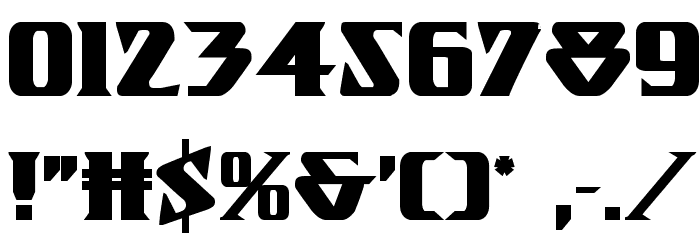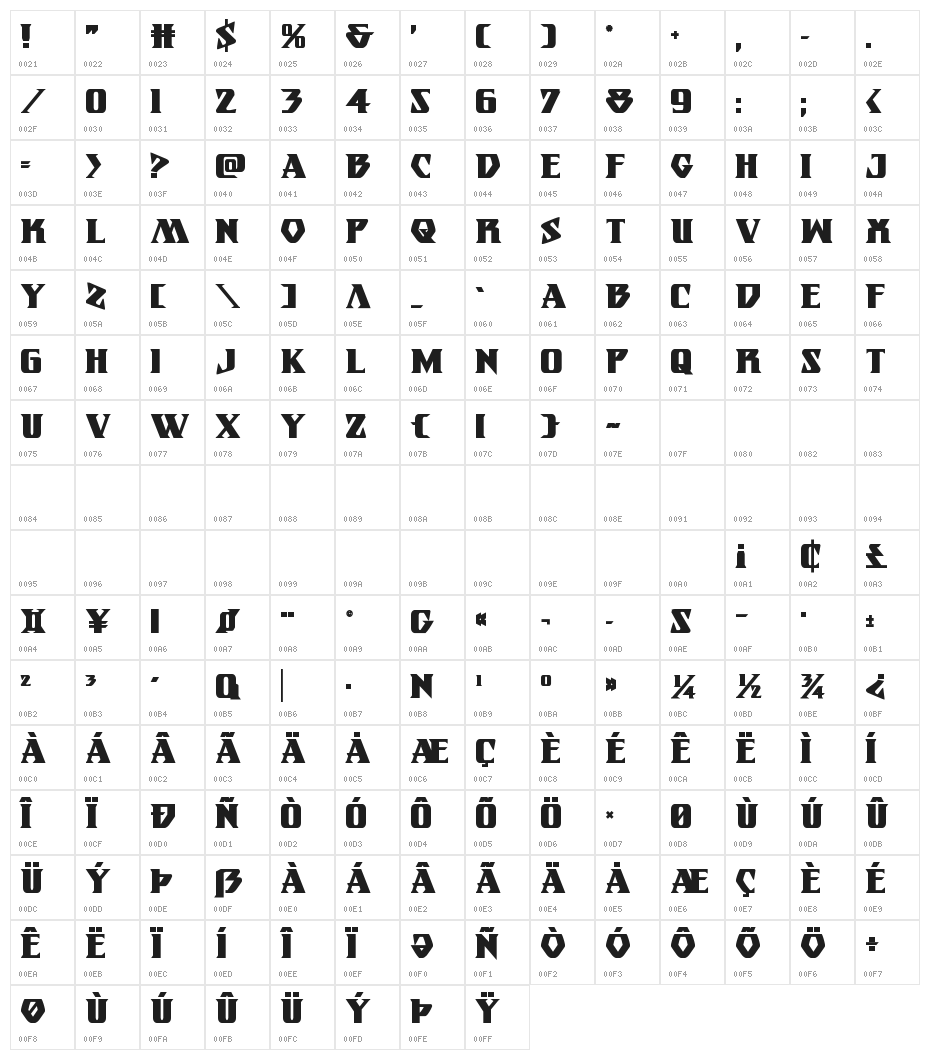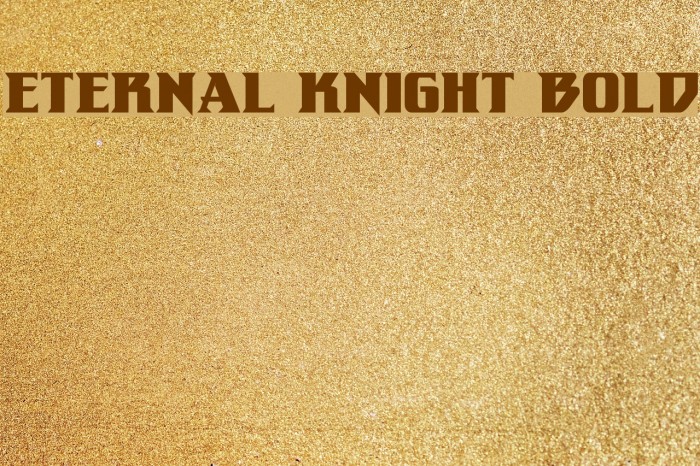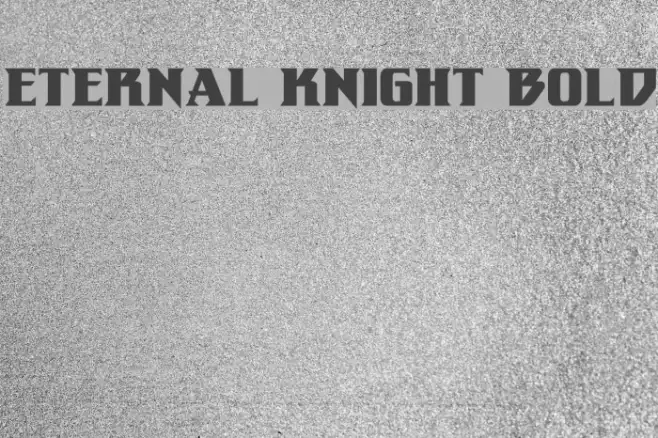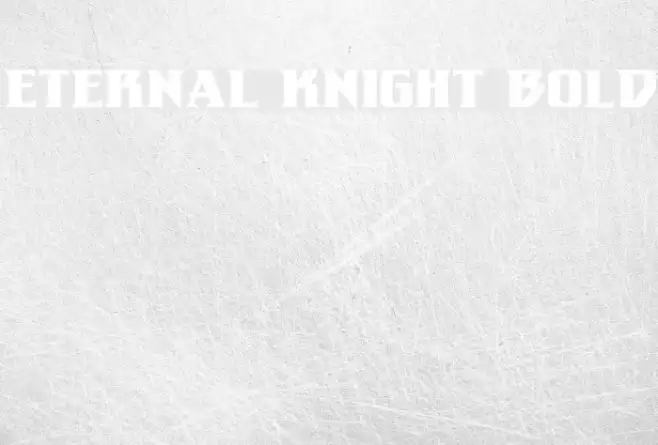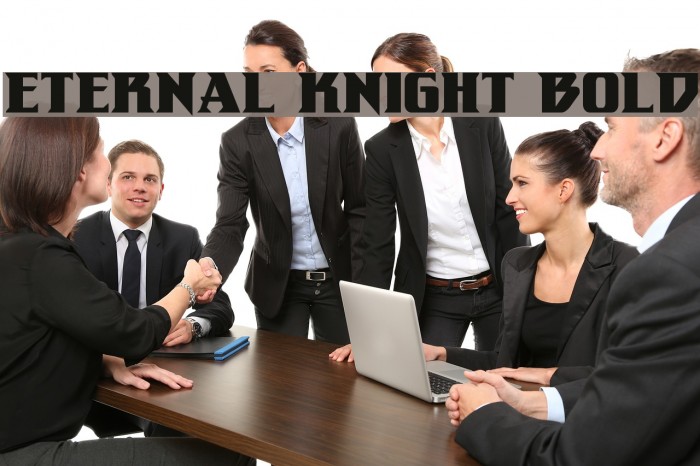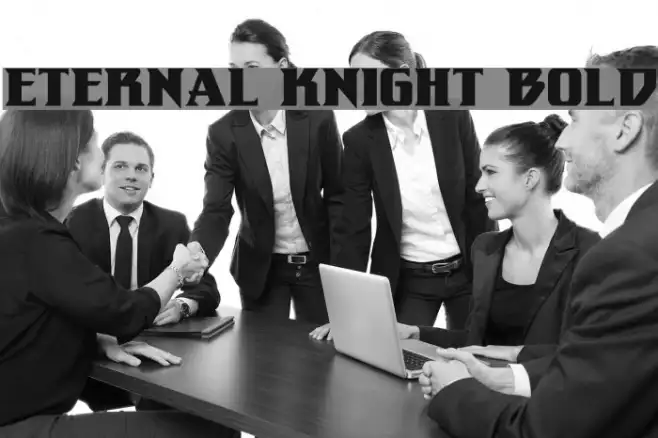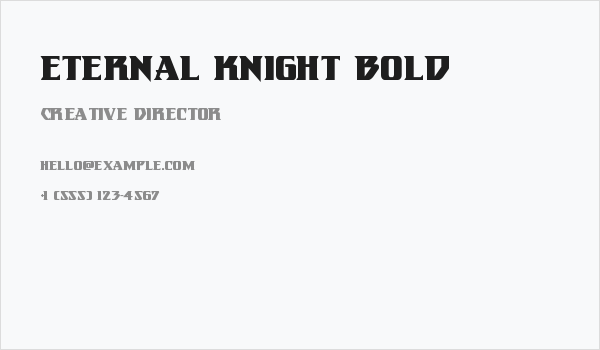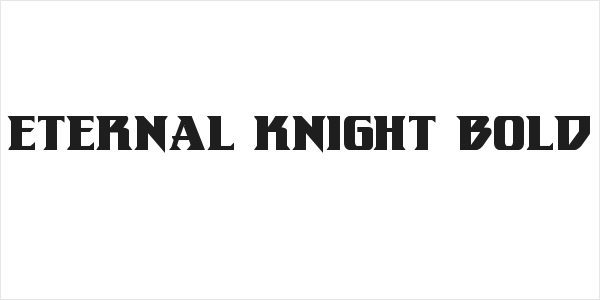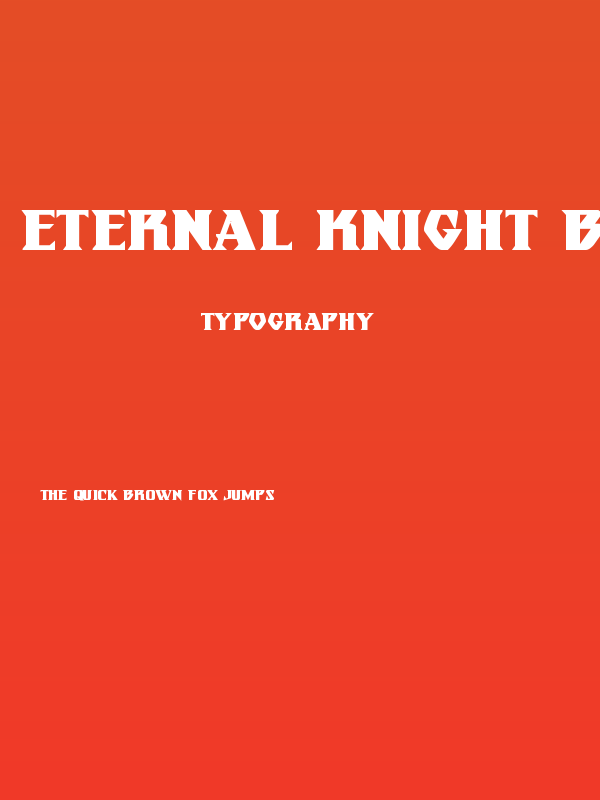
Eternal Knight Bold Font
Eternal Knight Bold Description
This font features a bold and striking design with sharp, angular edges and a strong presence. The characters are heavily stylized, with a medieval or gothic influence, giving them a unique and dramatic appearance. The uppercase letters are particularly prominent, with a consistent thickness that enhances their boldness. The numbers and special characters maintain the same stylistic elements, ensuring a cohesive look across all glyphs. This font's design is both decorative and impactful, making it suitable for projects that require a strong visual statement.
| Proposed Projects | Ideal for use in fantasy-themed designs, video game titles, posters, and branding that requires a dramatic and bold aesthetic. |